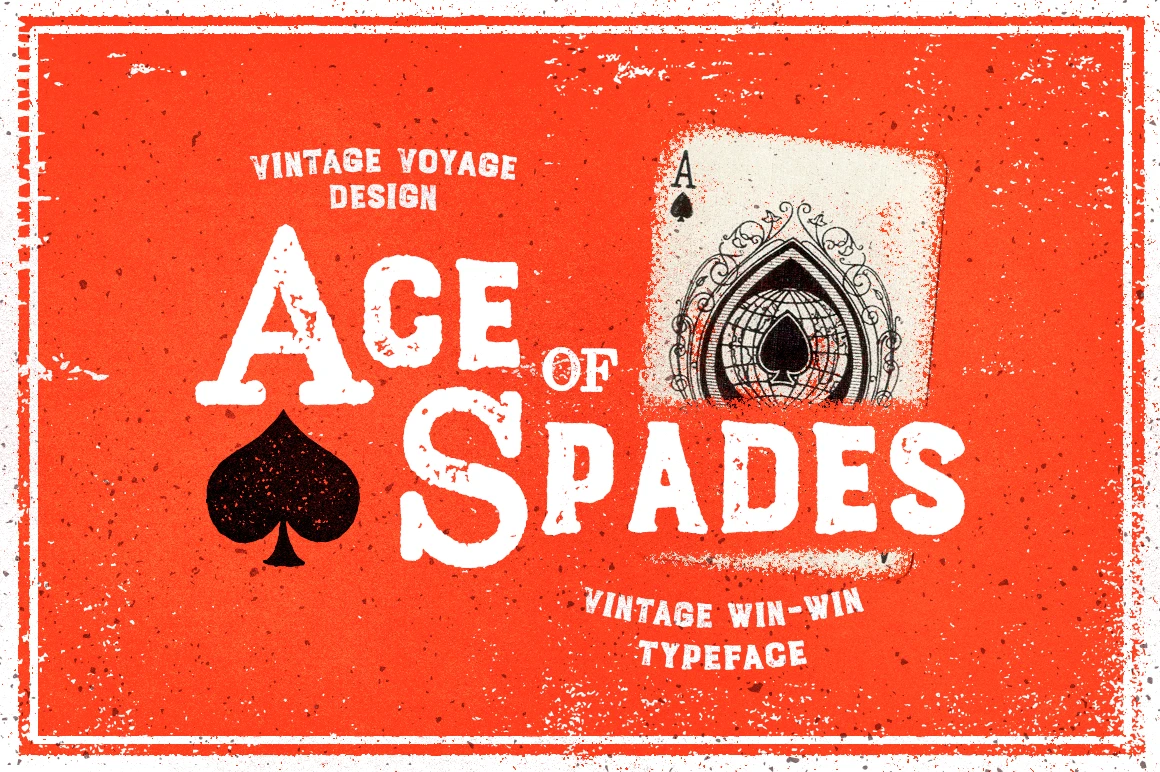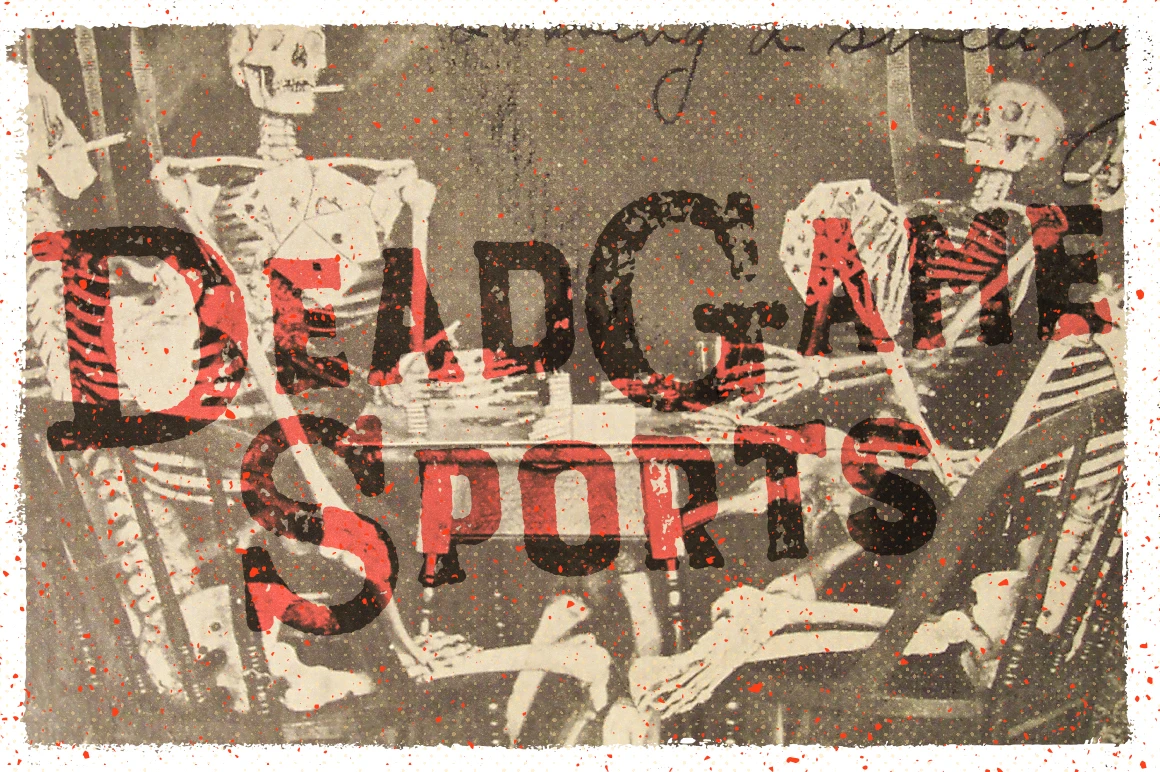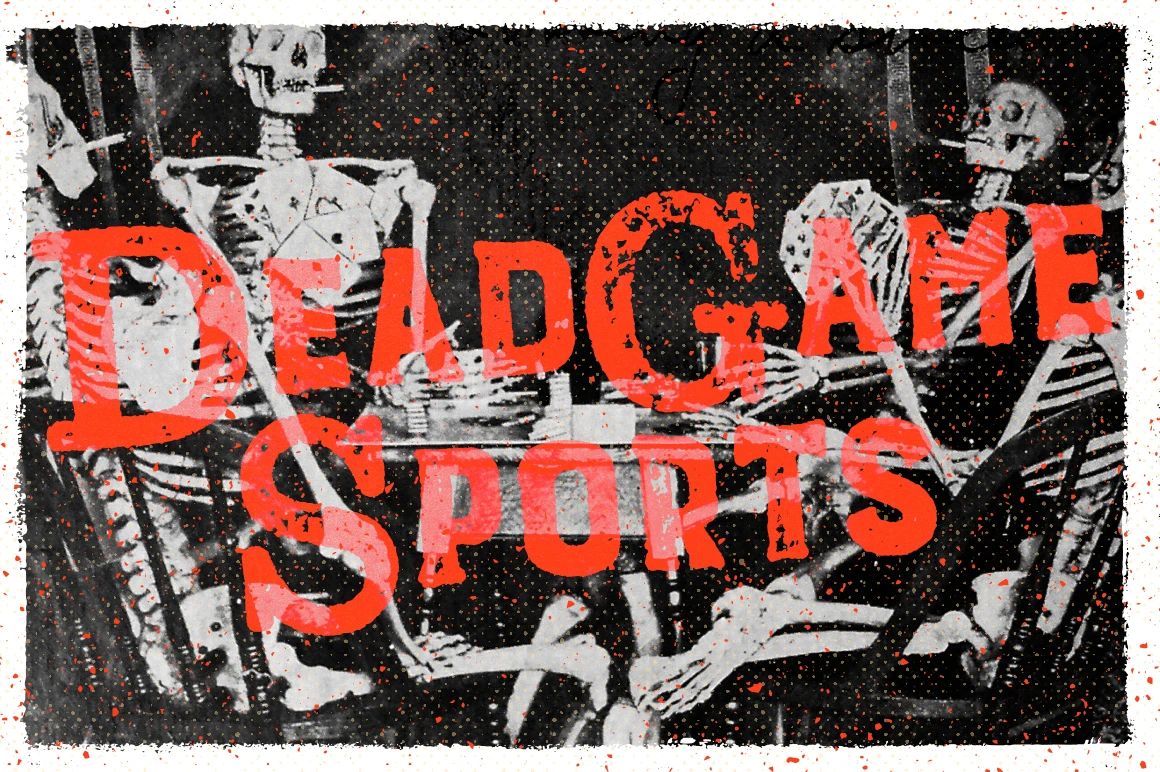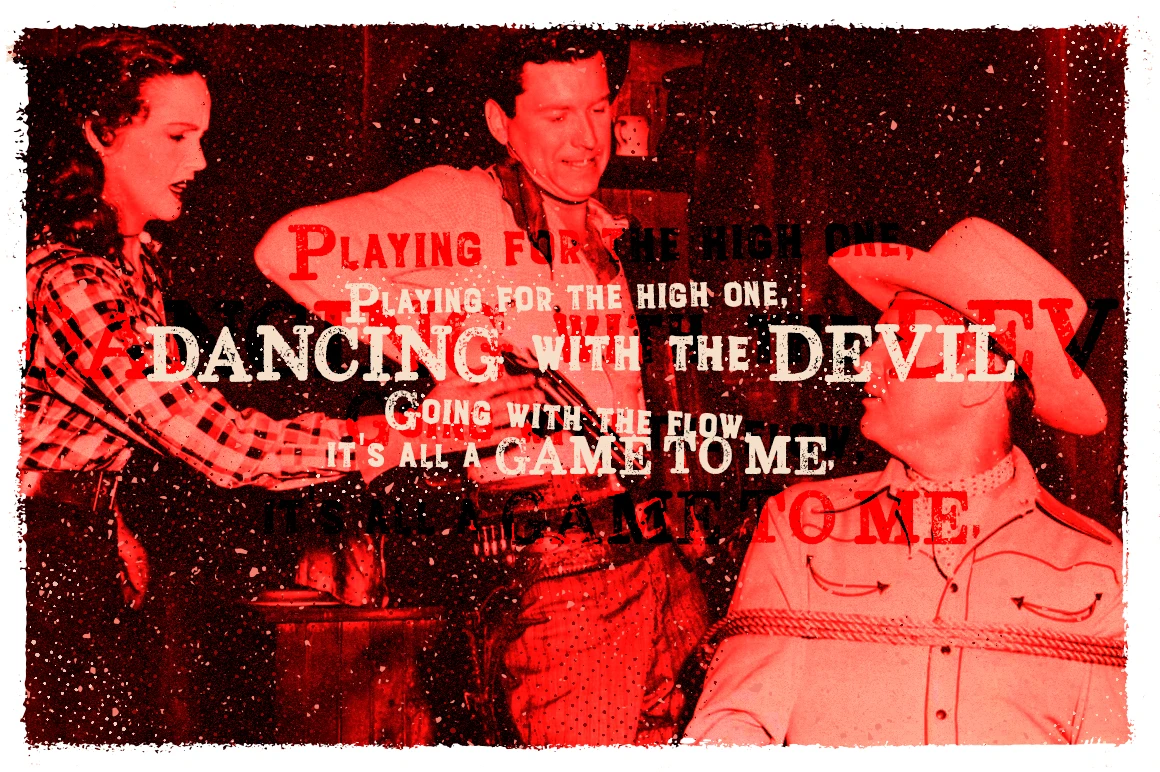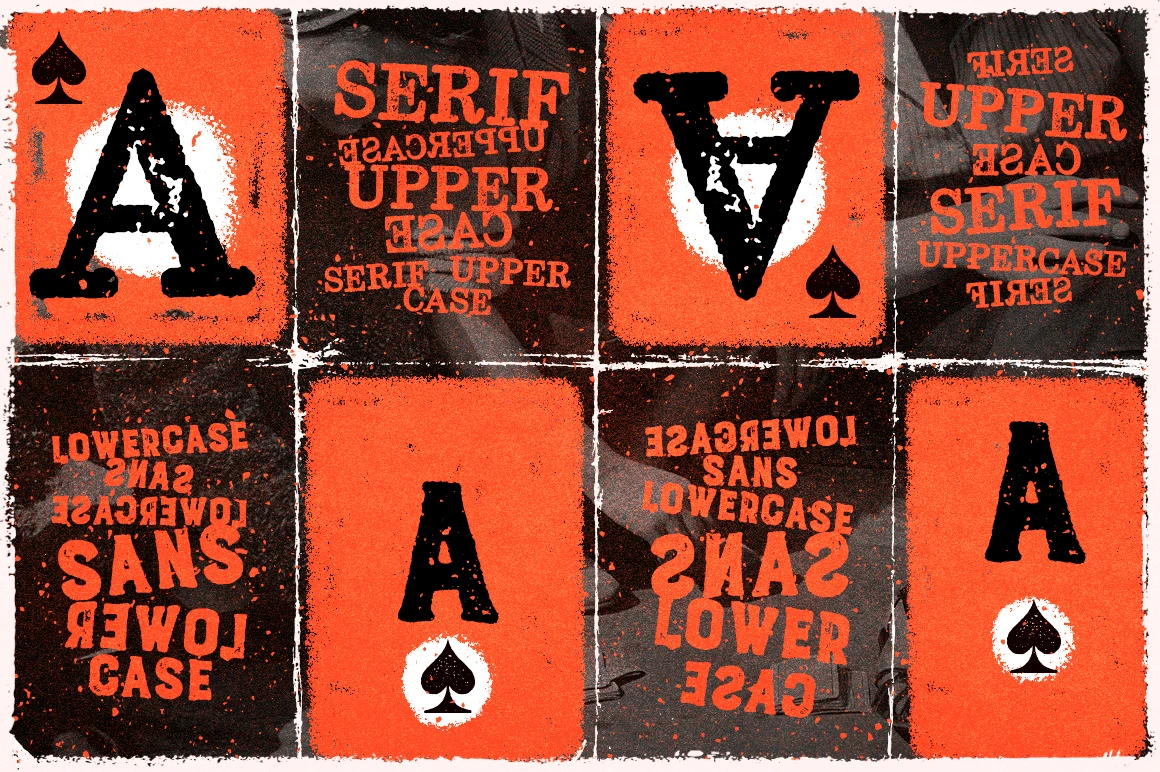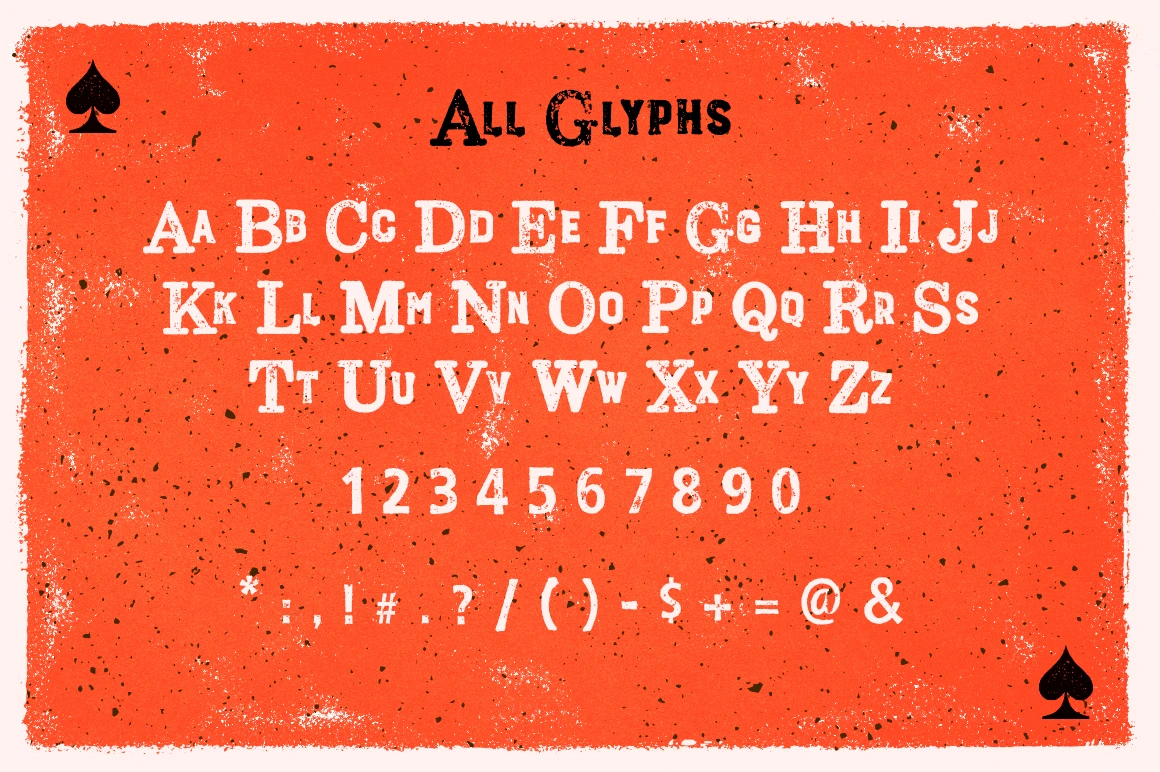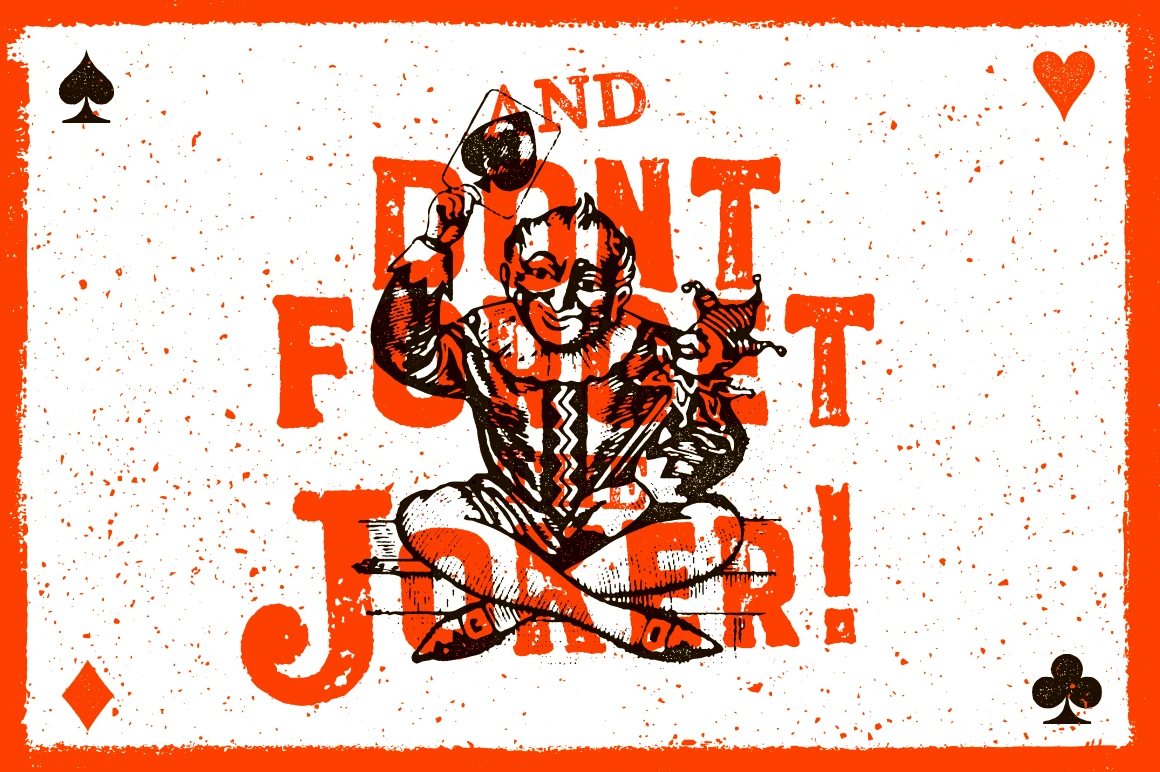
Ace of Spades Font
Ace of Spades is a combo font with serif uppercase and sans-serif lowercase letters. Built using a real letterpress process for true vintage texture. Perfect for t-shirts, packaging, posters, and bold photo overlays. Inspired by old-school print methods and designed for eye-catching, nostalgic design. Adds charm and energy to any creative project.
Ace of Spades